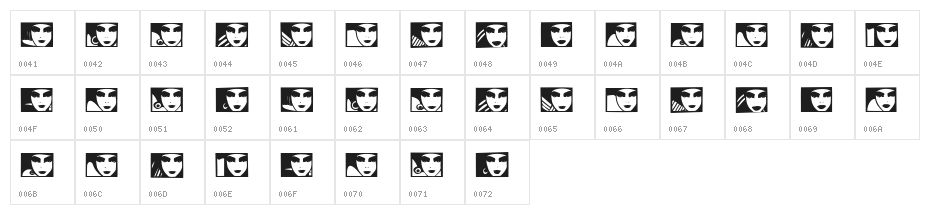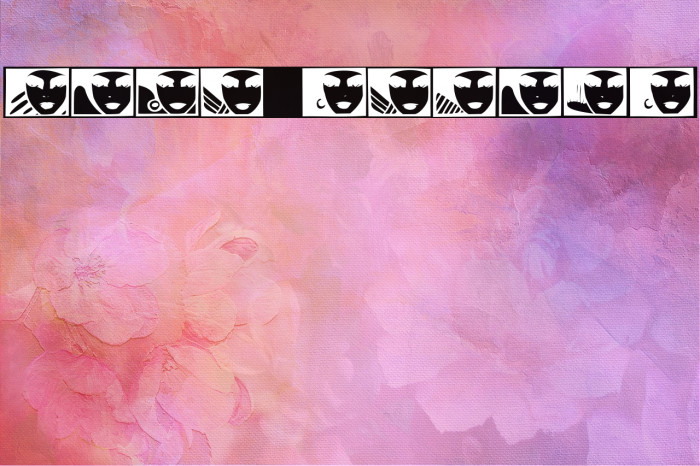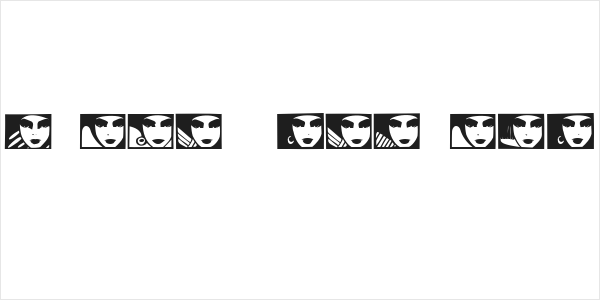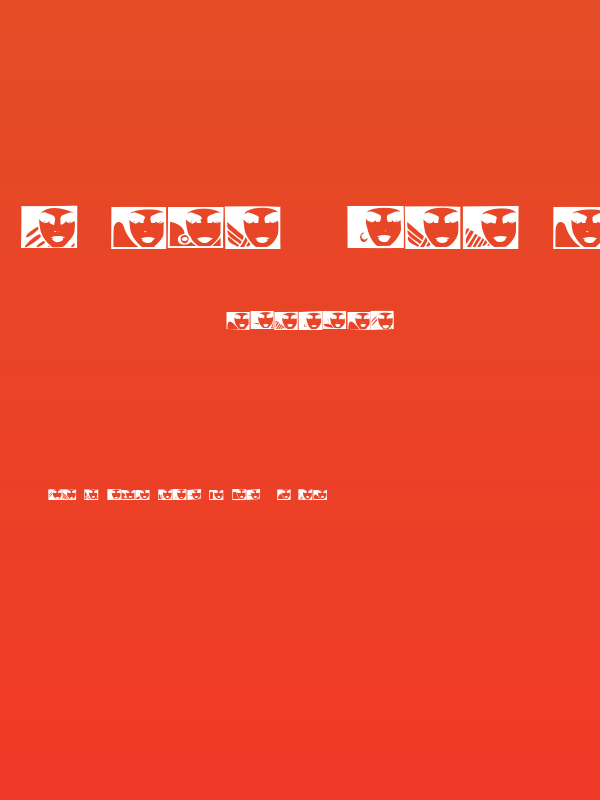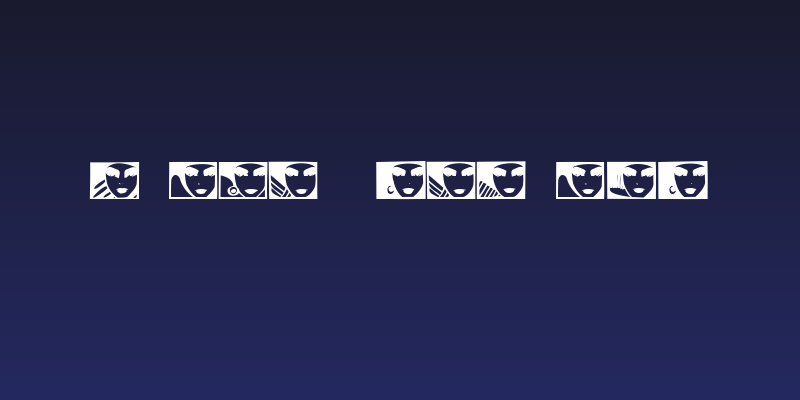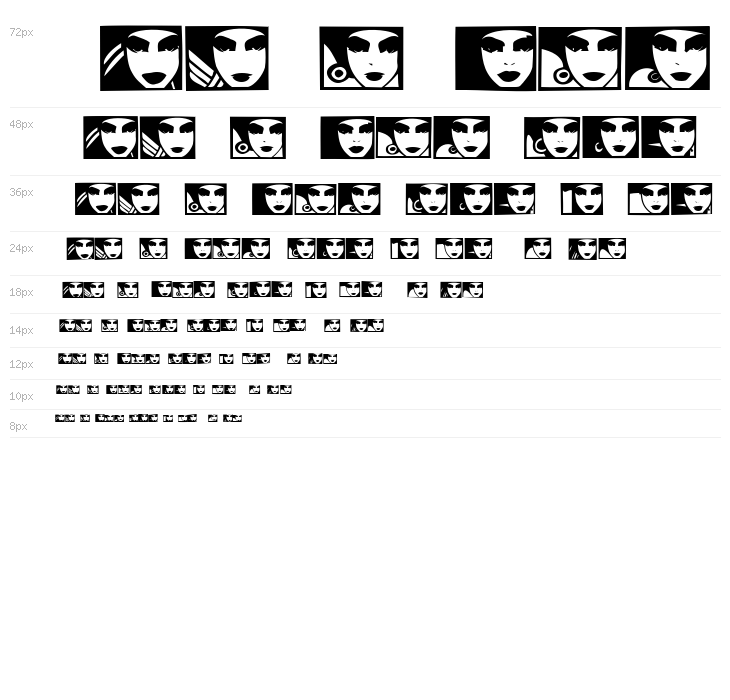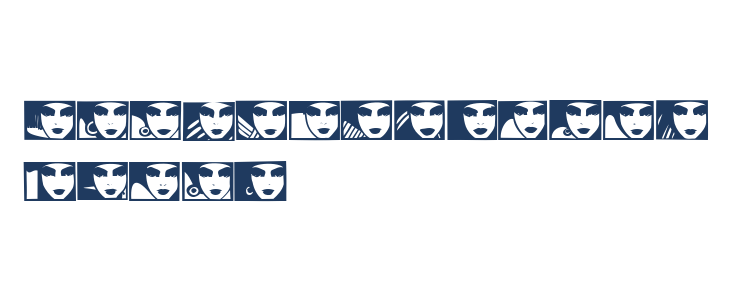
Dulcet Regular Font
Dulcet Regular Description
A highly decorative and illustrative typeface where each character is represented by a stylized, geometric portrait of a woman's face within a square frame, using bold black and white contrast and art deco-inspired features.
| Overall Style | Decorative, Art Deco, Modern |
| Use Case | Logos, Headlines, Posters, Artistic projects |
| Proposed Projects | Posters, album covers, fashion branding, editorial spreads, event invitations, decorative headings. |